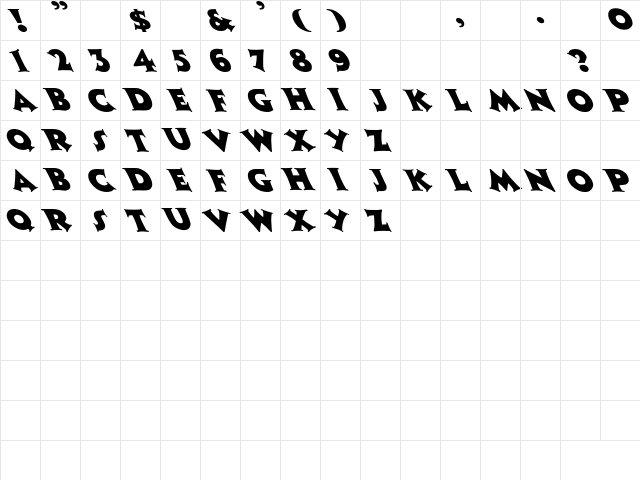
Complete Zaleski Extreme Lefti Regular glyph index. Displaying only characters natively supported by Zaleski Extreme Lefti Regular font.
Zaleski Extreme Lefti is a composed and adaptable typeface that performs quietly and consistently across a wide range of design contexts.